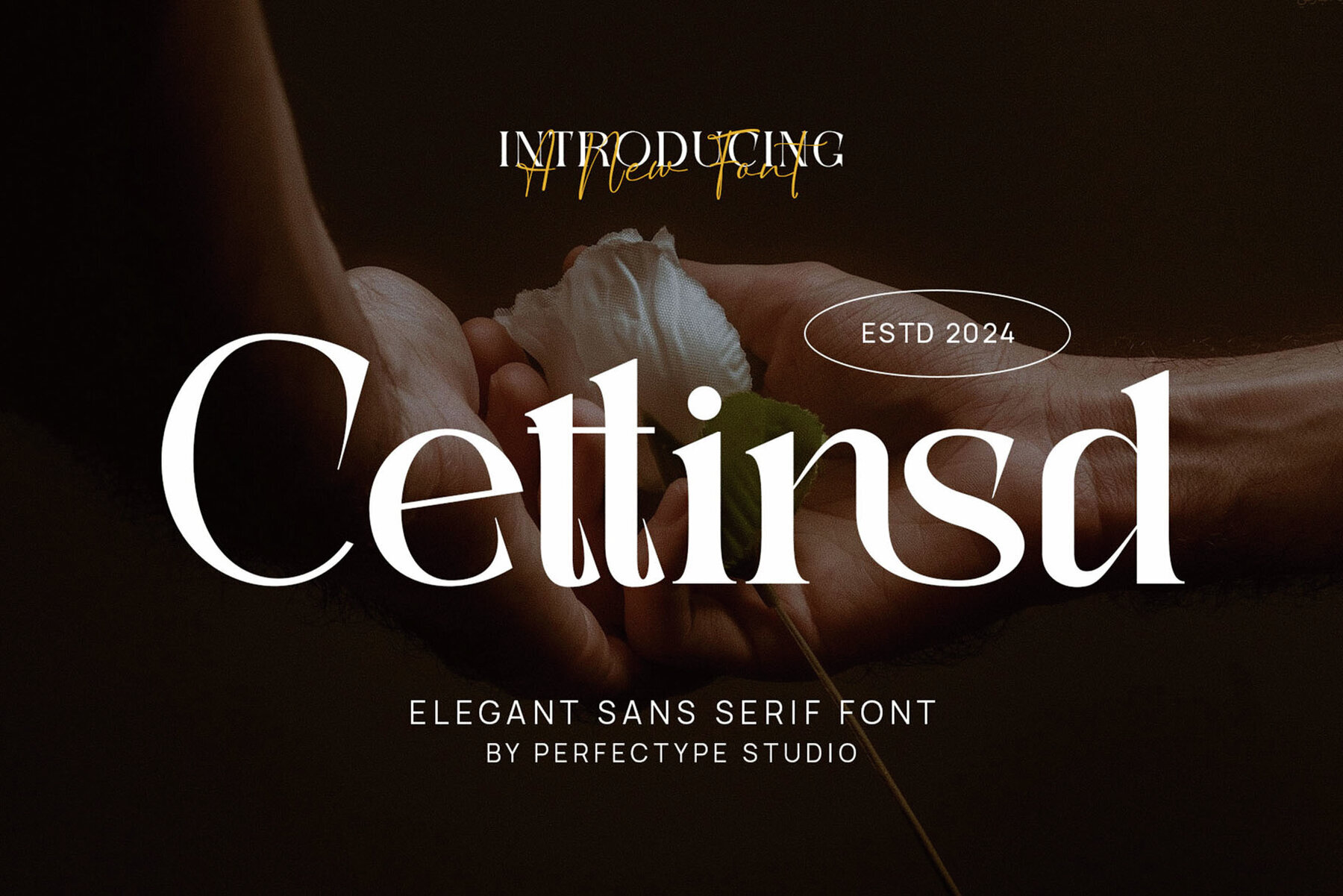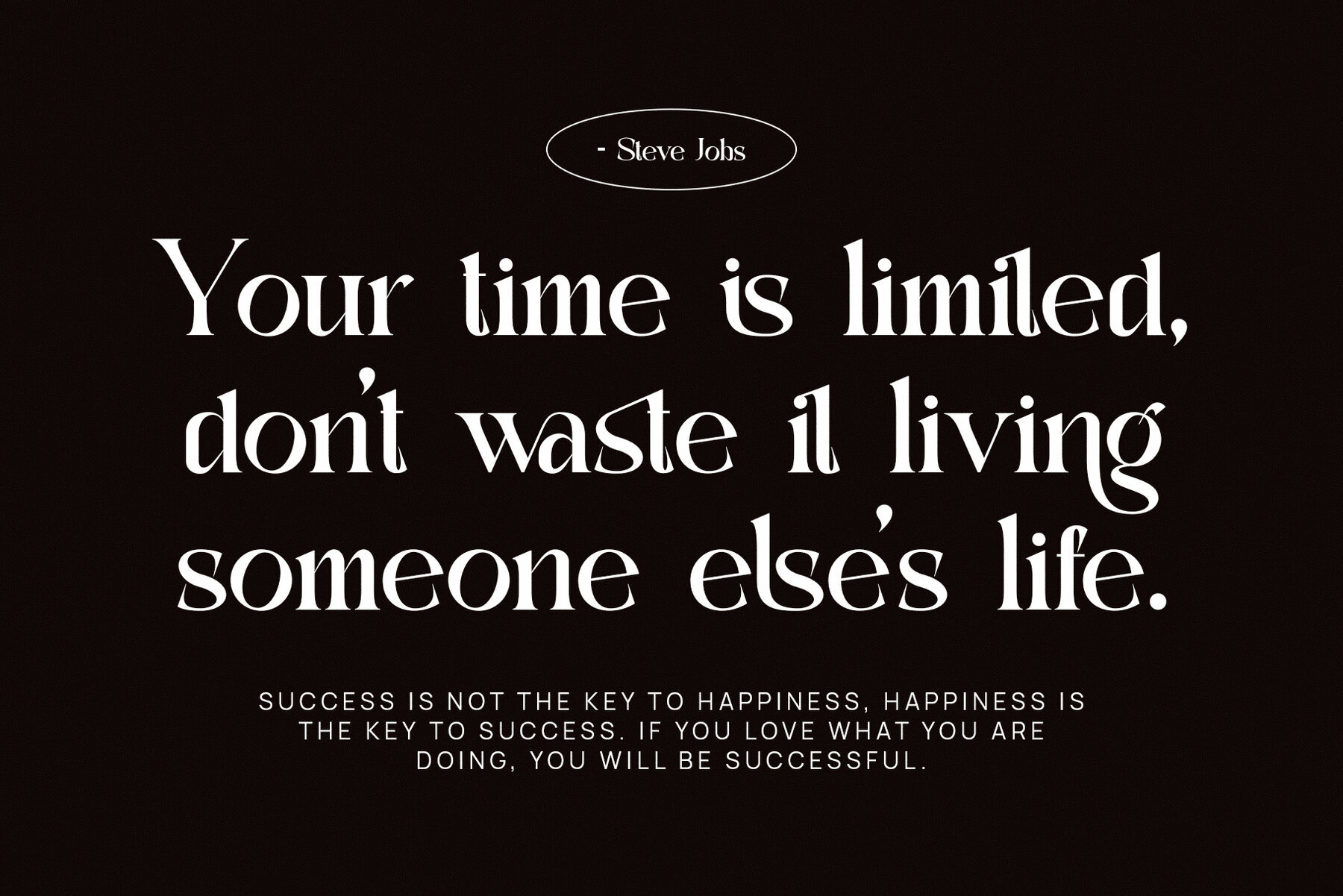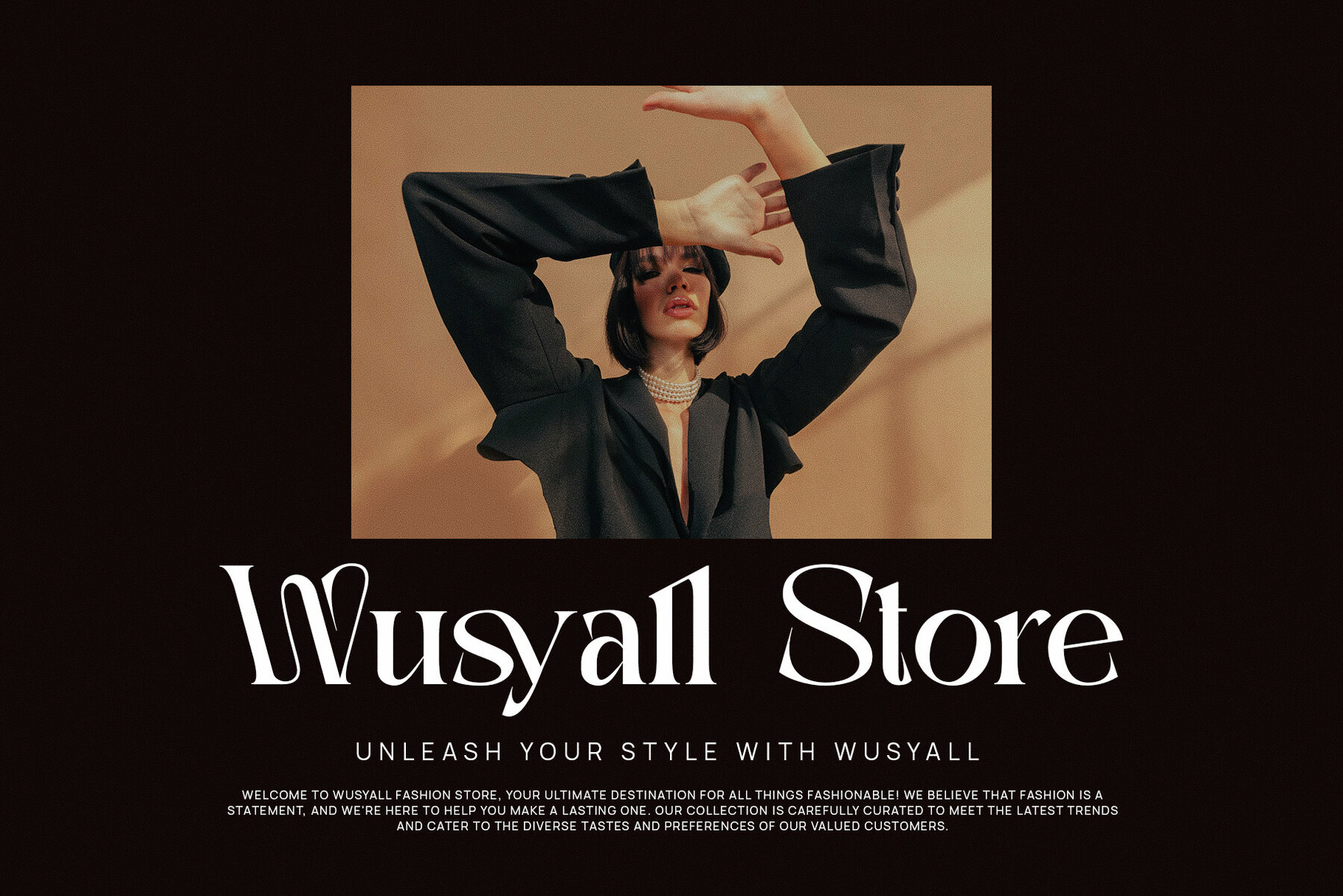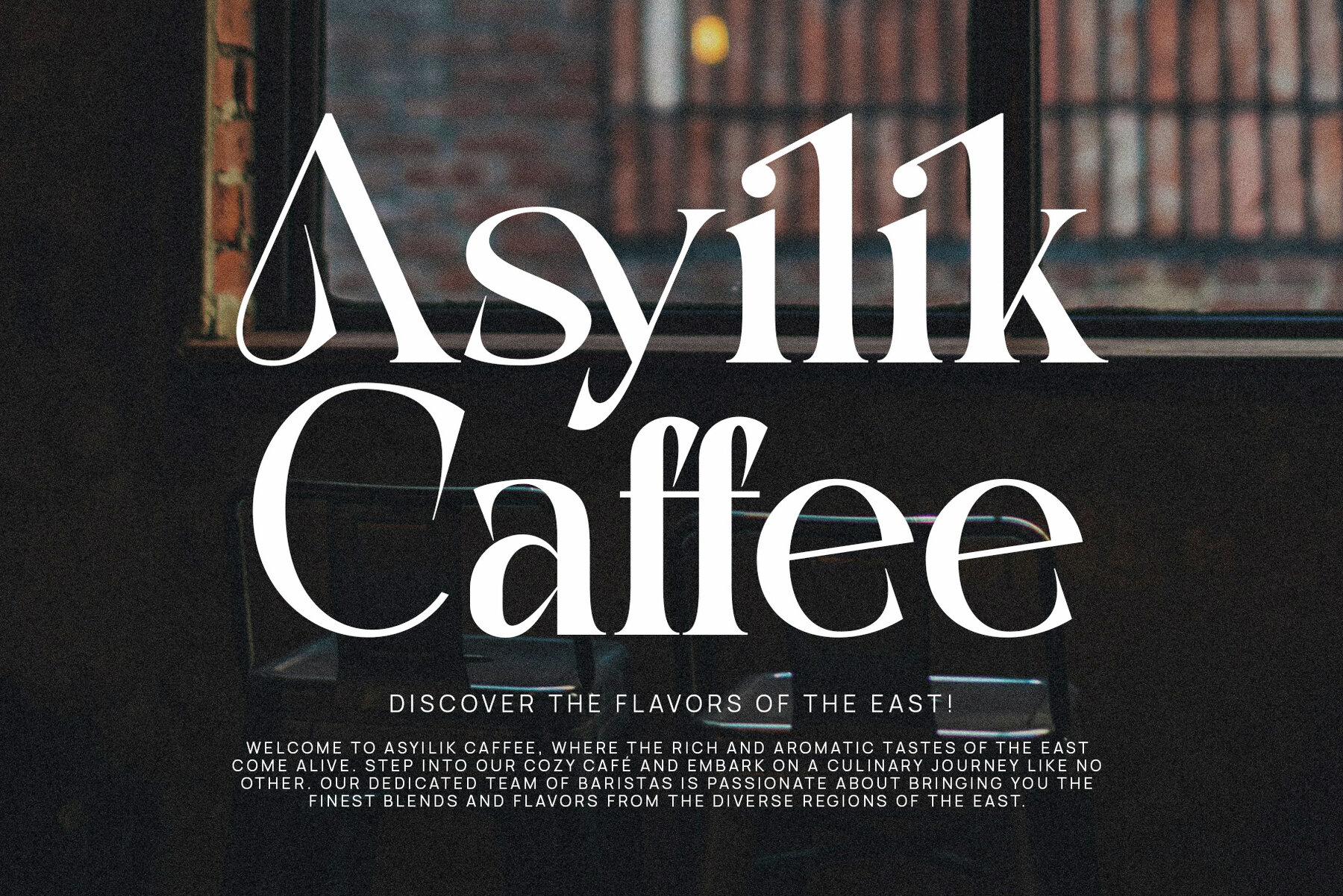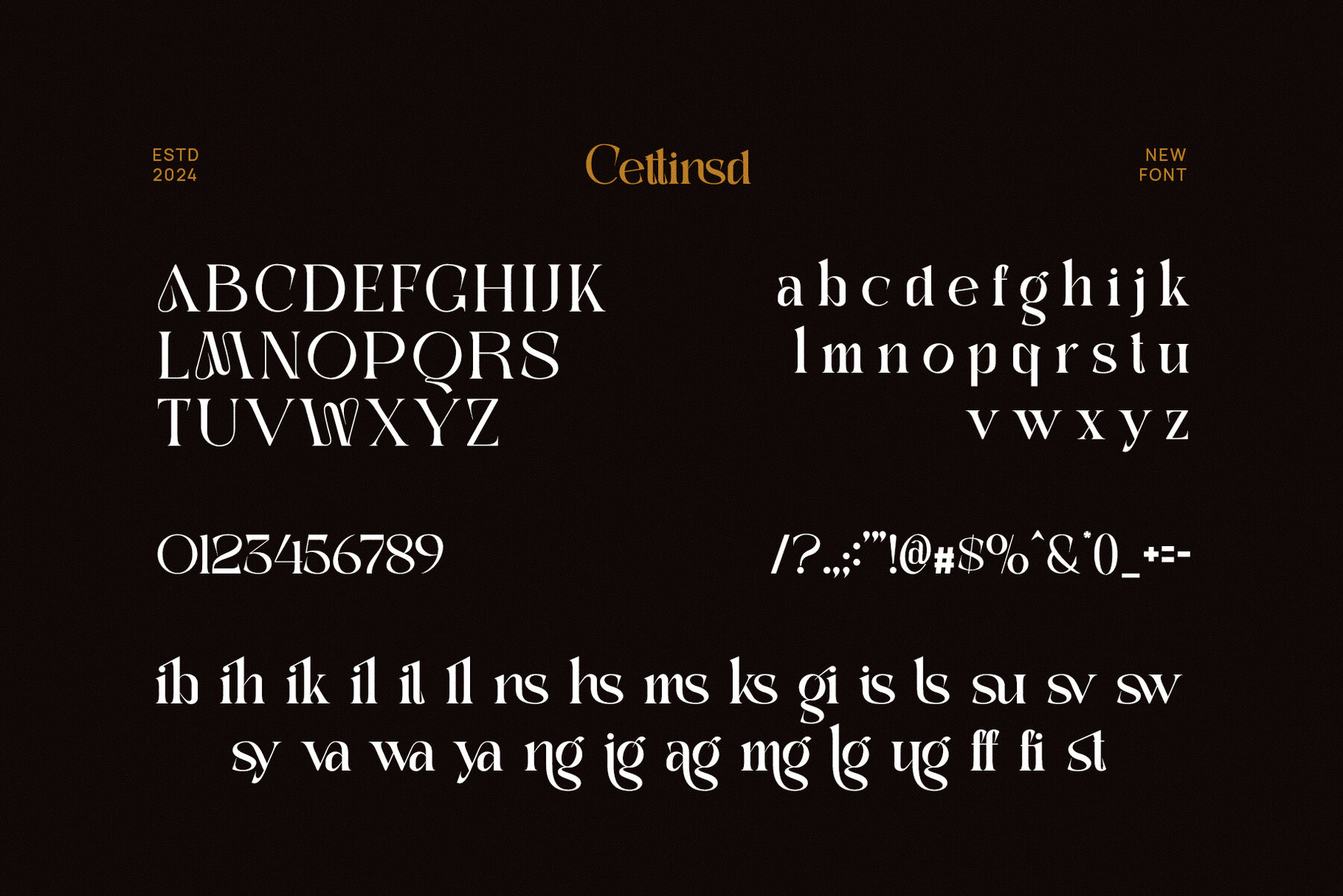
Cettinsd Font
Cettinsd
Introducing the Cettinsd Elegant Serif Font—a harmonious blend of modern sophistication and timeless elegance. This serif font boasts uniquely crafted letterforms, bringing a refined aesthetic to any design project. By merging traditional serif details with contemporary flair, Cettinsd is a versatile choice for both classic and modern designs. Its graceful curves, intricate ligatures, and thoughtfully designed alternate characters add a touch of luxury and high-end appeal to your projects.
Cettinsd shines in various applications, from boutique branding and premium product packaging to elegant websites and eye-catching advertisements. Its versatility suits a range of creative projects, including magazines, fashion promotions, restaurant menus, and event invitations. The font's elegant serifs enhance readability while maintaining a stylish vibe that resonates with modern audiences. This sophisticated yet approachable font adapts effortlessly to both minimalistic designs and multifaceted compositions.
Ideal for creatives seeking a balance of elegance and modernity, the Cettinsd Elegant Serif Font communicates your brand’s essence with grace and professionalism. It is sure to leave a lasting impression across all your design endeavors.